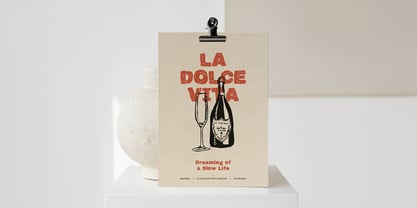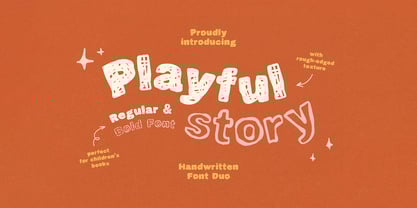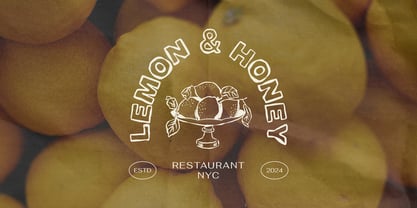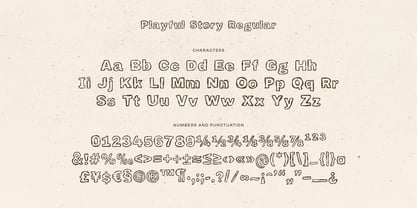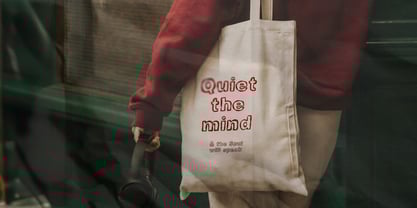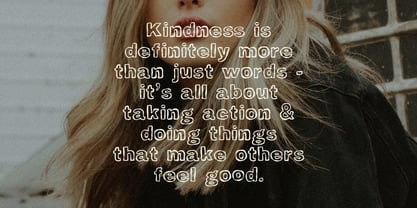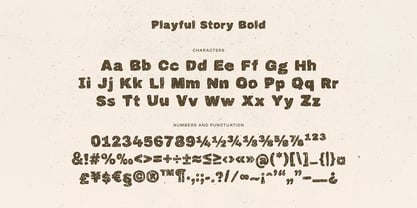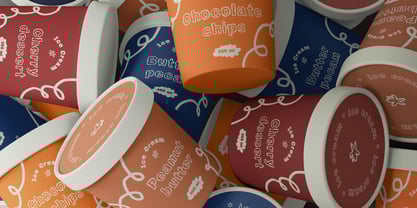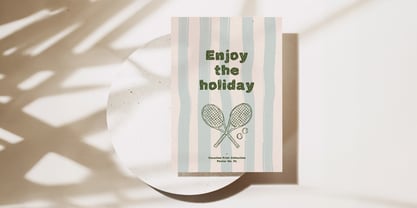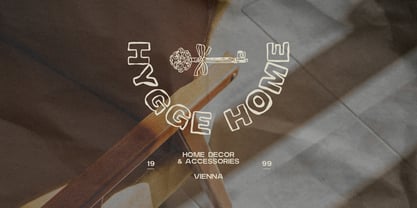
Playful Story
by Tetiana Bunakova
The Playful Story Font Family was designed by Tetiana Bunakova and published by Tetiana Bunakova. Playful Story contains 2 styles and family package options. More about this family
Say hello to the rustic, rough-edged Playful Story duo script. This delightful pair of handwritten outlined and filled fonts is fun to work with. They are perfect for children's books, greeting cards, packaging design, brand identity, art posters, and more.